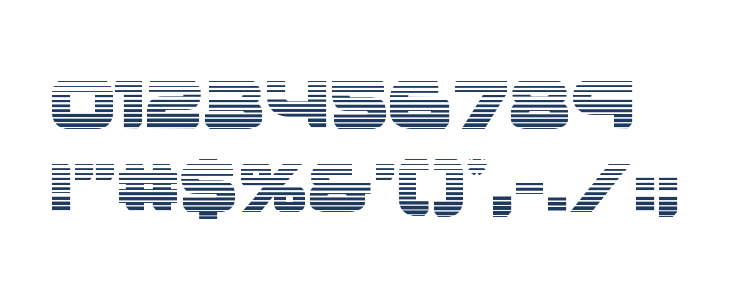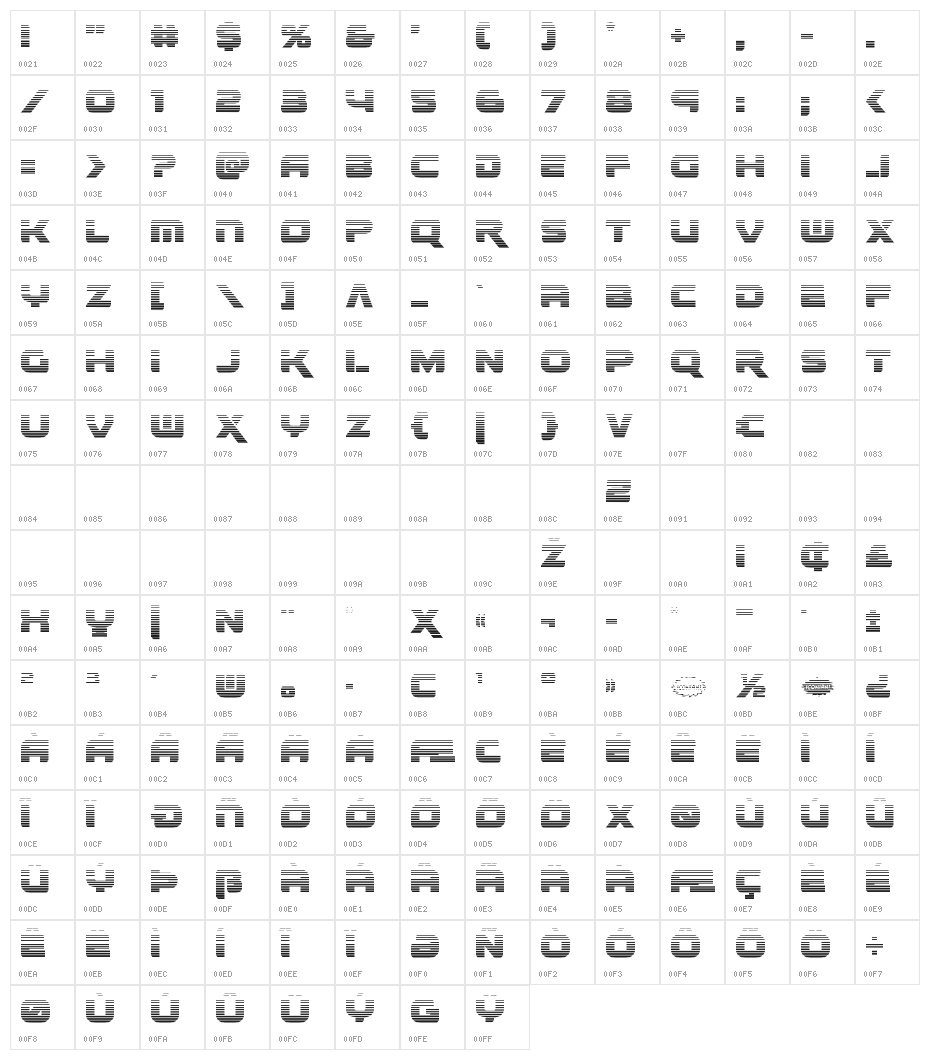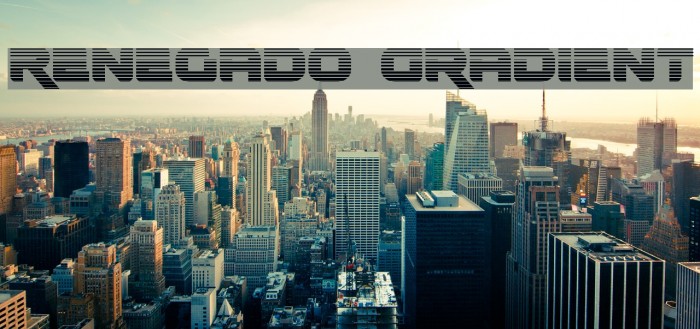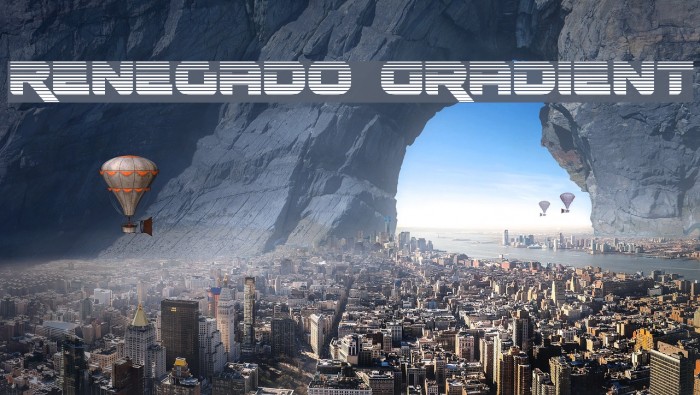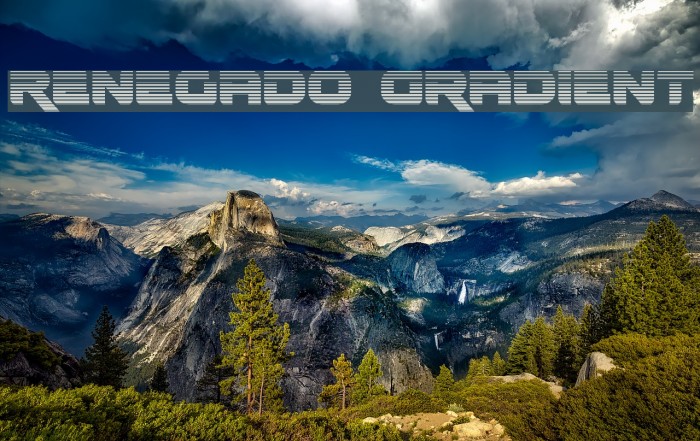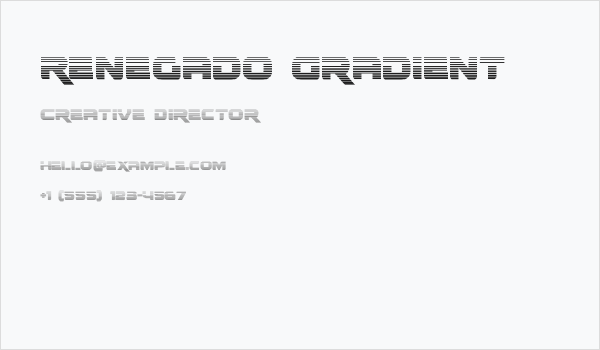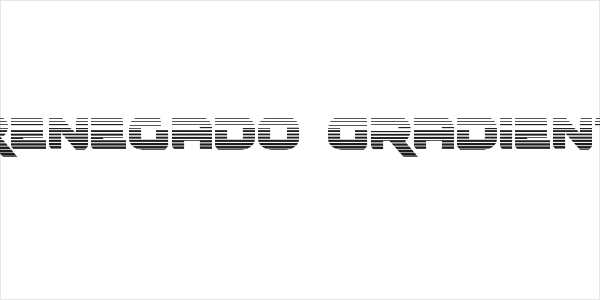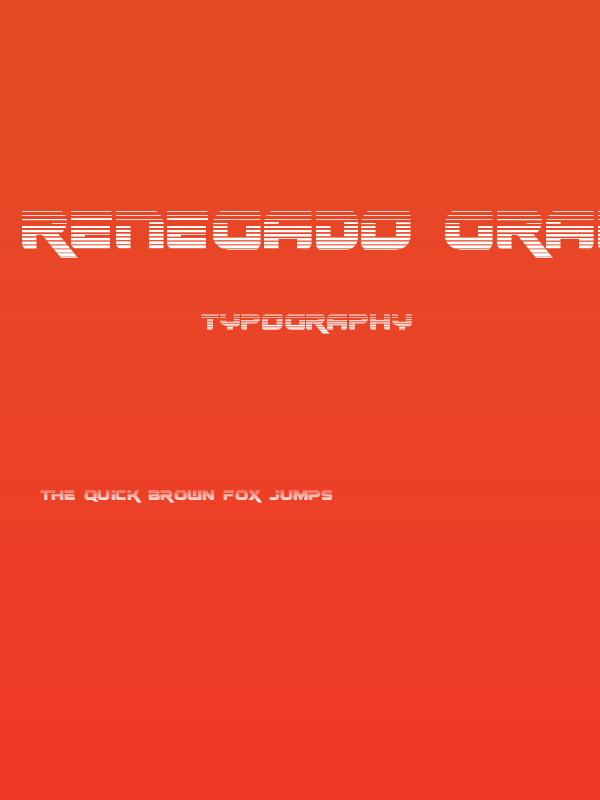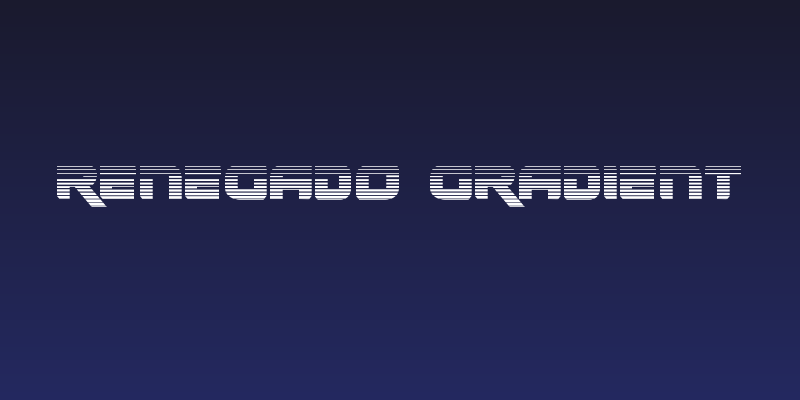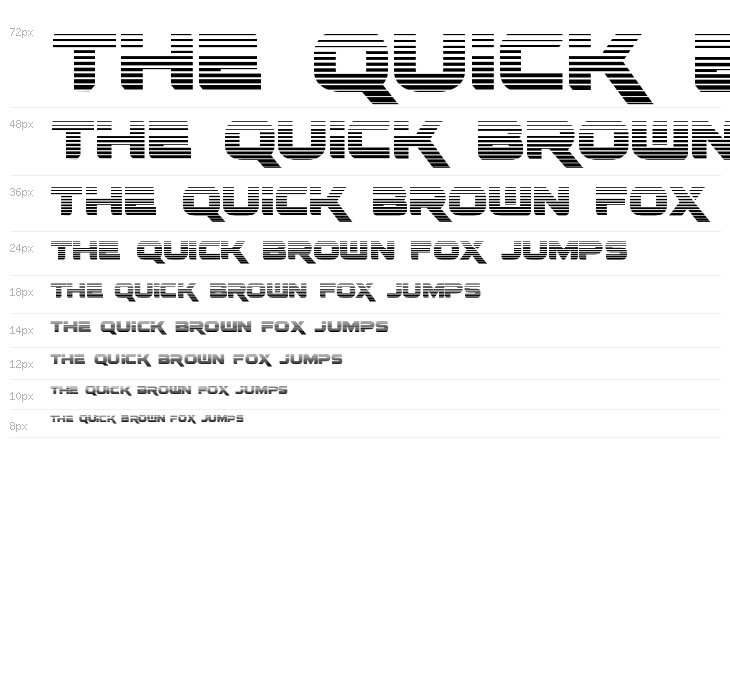
Renegado Gradient Font
Renegado Gradient Description
This font features a bold, futuristic design with a distinct gradient effect created by horizontal lines running through each character. The uppercase and lowercase letters maintain a consistent width, giving the font a uniform appearance. The characters are angular and geometric, with sharp edges that enhance its modern aesthetic. The numbers and special characters follow the same design principles, ensuring cohesion across all elements. This font's unique style makes it stand out, offering a visually striking option for creative projects.
| Proposed Projects | Ideal for sci-fi themed projects, tech branding, video game titles, and modern posters. |